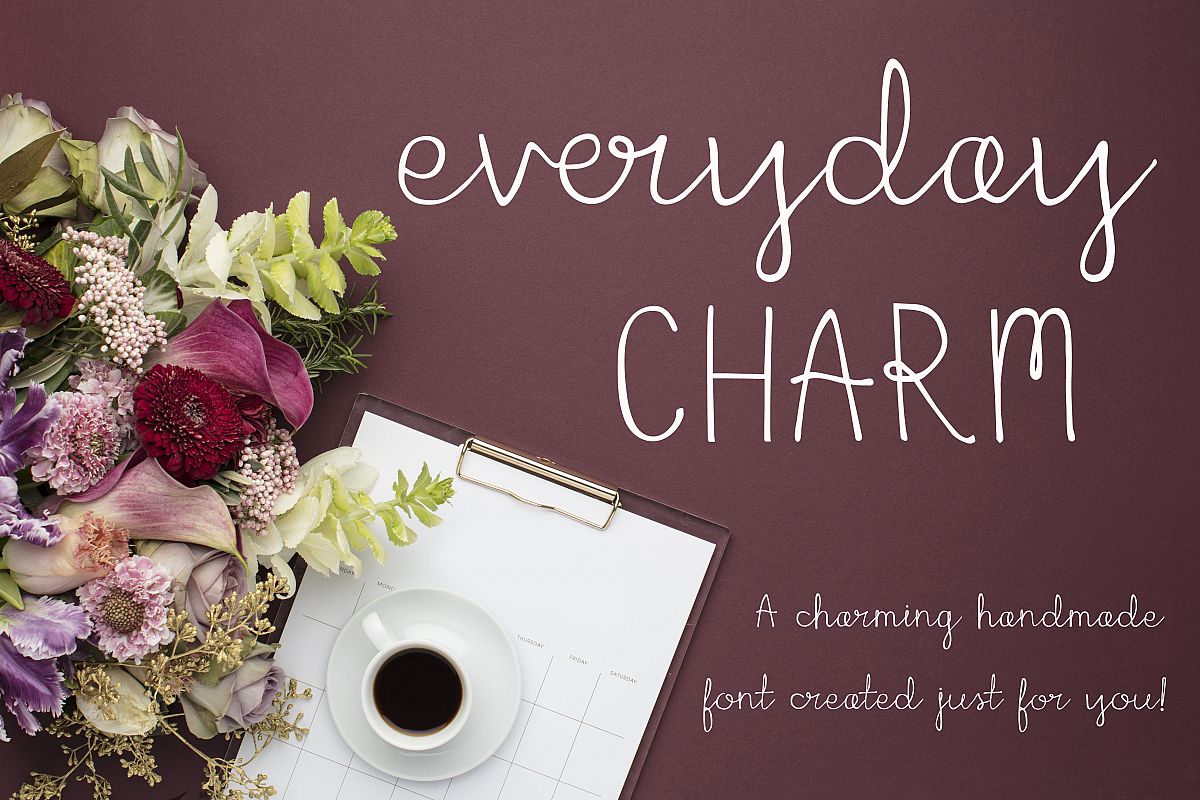
Everyday Charm will be a lovely addition to your work!This font is great for adding the perfect amount of charm to social media, greeting cards, branding, stationery design, packaging, prints and more!
Everyday Charm has a couple different features to create charming, handmade outcomes: 2 discretionary ligatures and 14 standard ligatures.